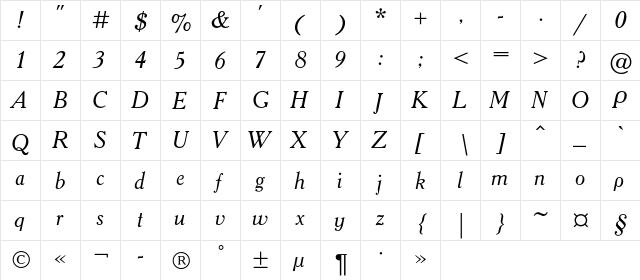
AcademyC Italic
Design Context for AcademyC Typeface
AcademyC is a composed and adaptable typeface that performs quietly and consistently across a wide range of design contexts. The slanted form adds forward momentum and visual energy.
Pro Tip: Use AcademyC for emphasis, pull quotes, and subheadings where its slanted energy can add rhythm to the layout.